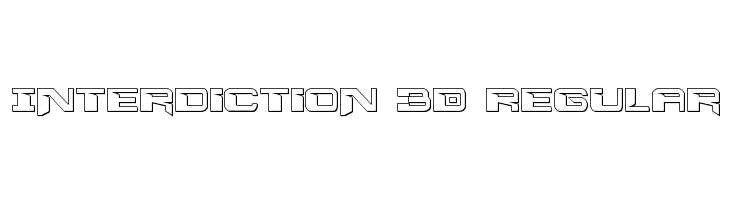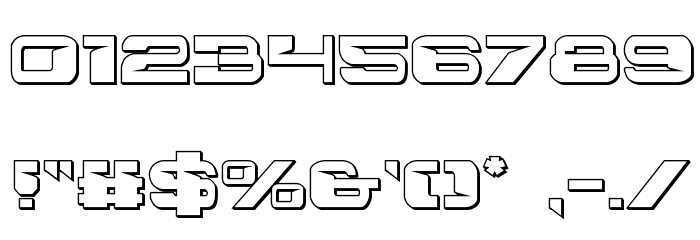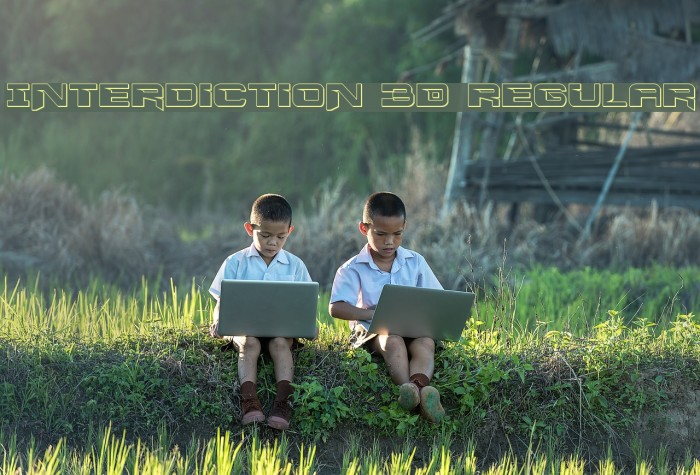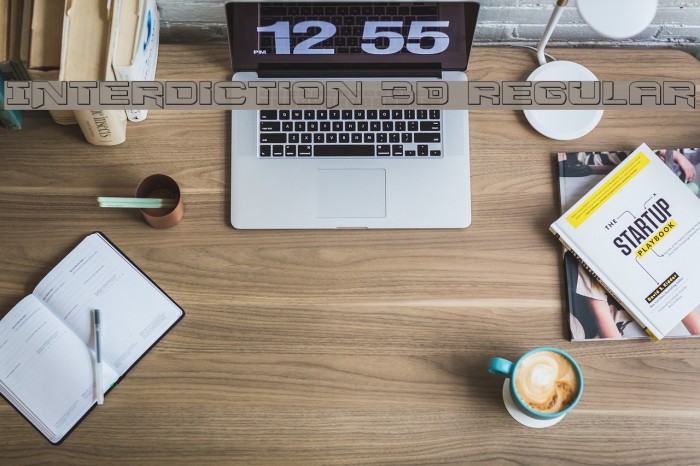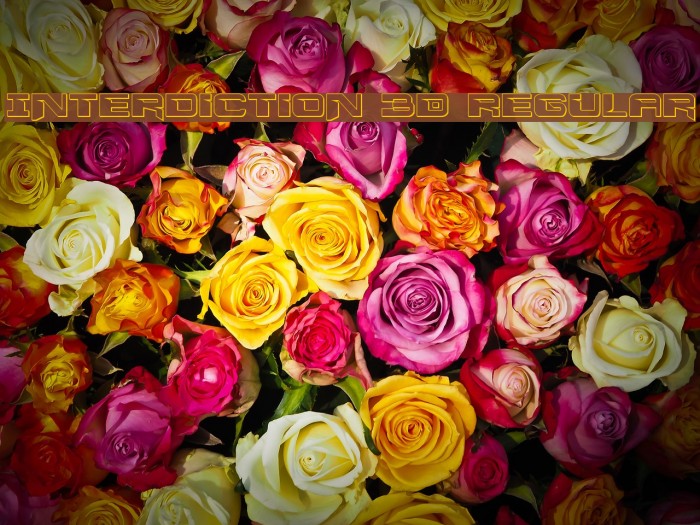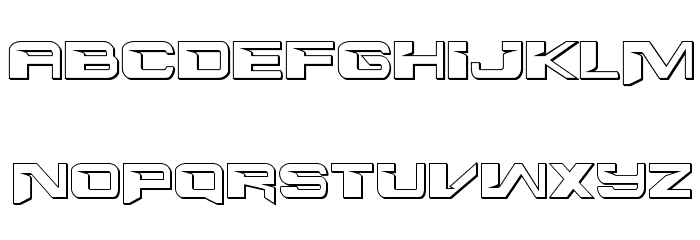
Interdiction 3D Regular Font
Interdiction 3D Regular Description
This font features a bold, three-dimensional outline style that gives it a futuristic and dynamic appearance. The characters are constructed with a geometric precision, incorporating sharp angles and clean lines that create a sense of depth and movement. The uppercase and lowercase letters maintain a consistent design, enhancing readability while still offering a unique visual appeal. The numerals and special characters follow the same stylistic approach, ensuring uniformity across all elements. This font's distinct 3D effect makes it stand out, making it ideal for projects that require a modern and eye-catching typeface.
| Proposed Projects | Ideal for sci-fi themed designs, video game graphics, posters, and branding that requires a modern and striking appearance. |